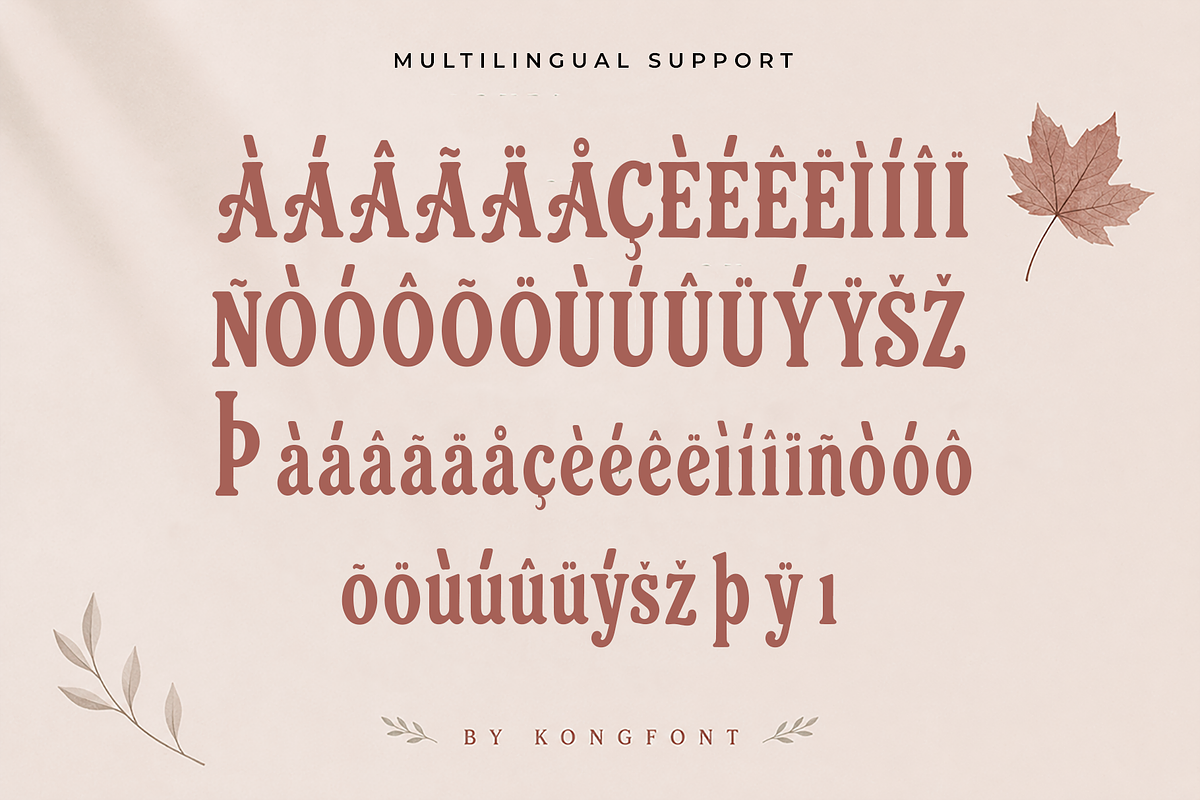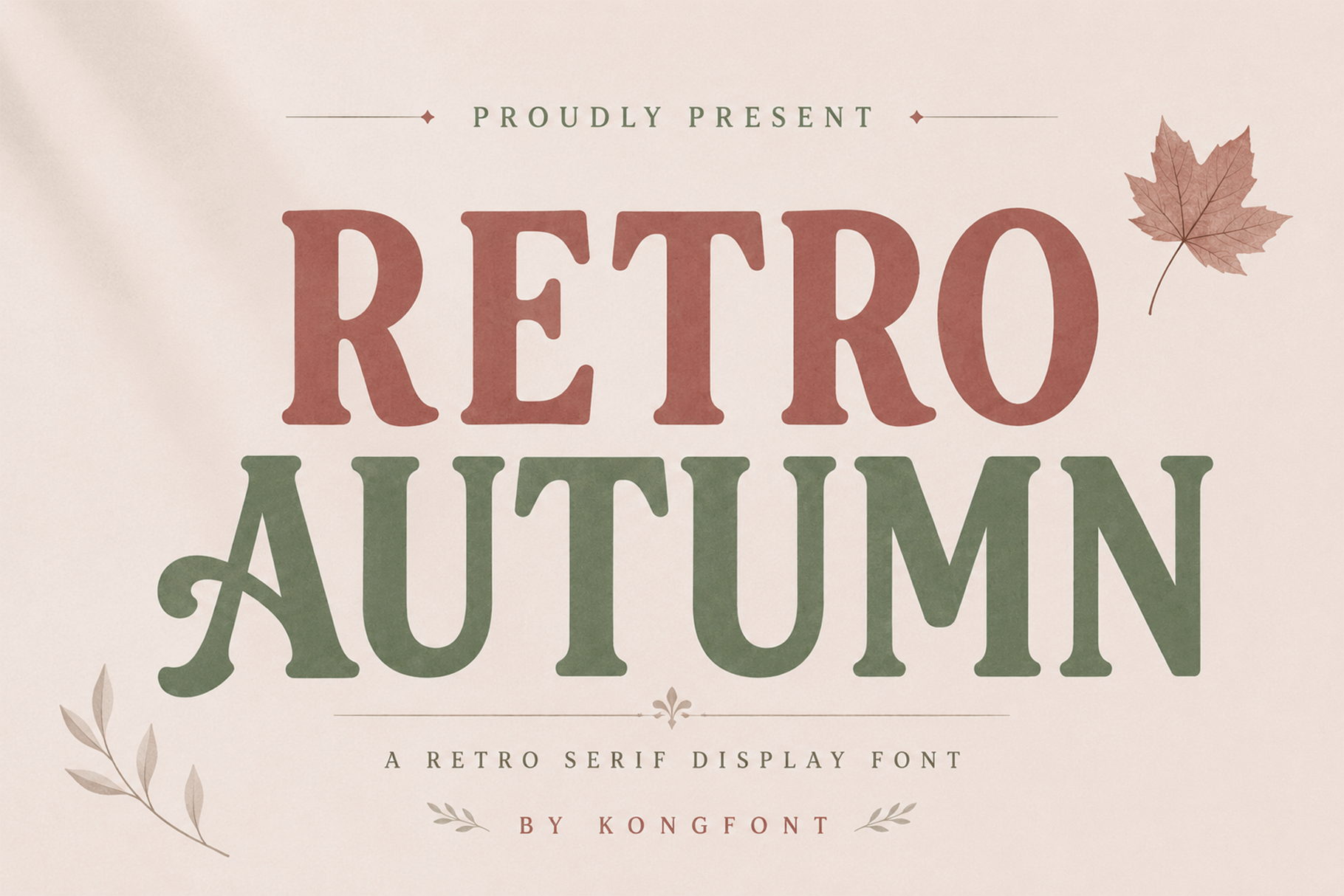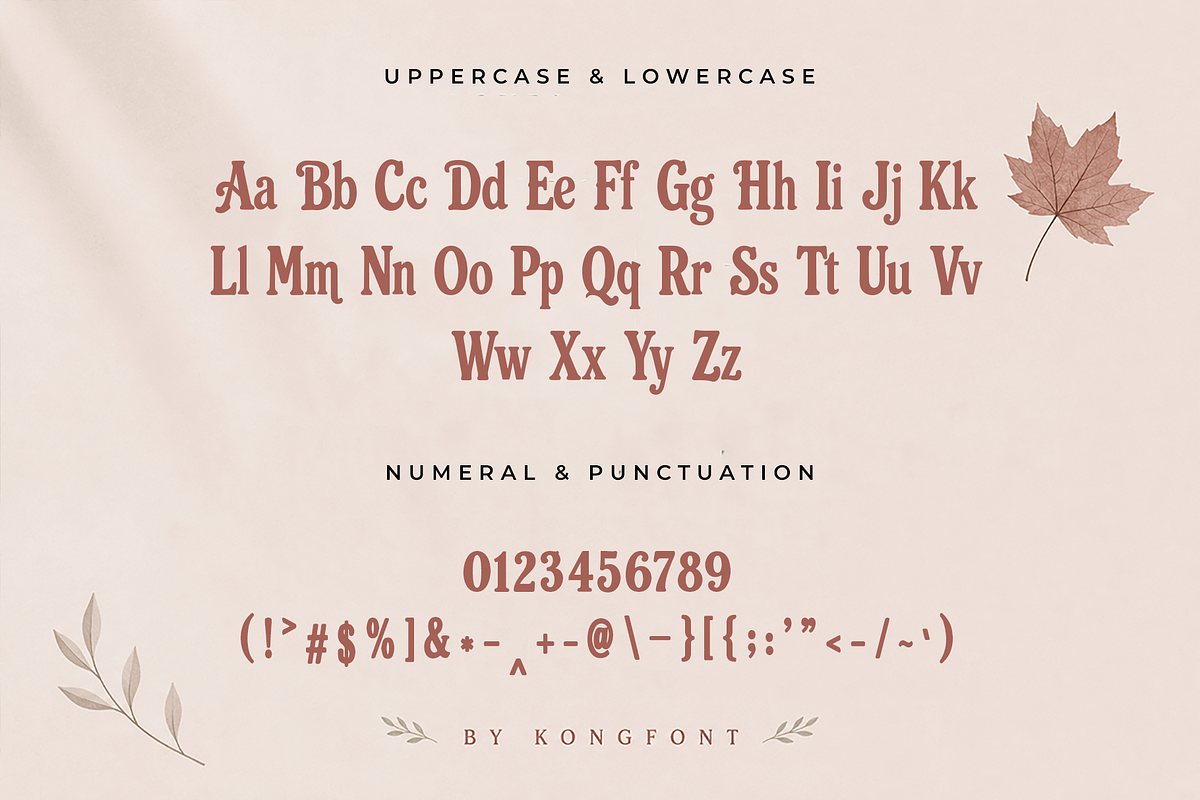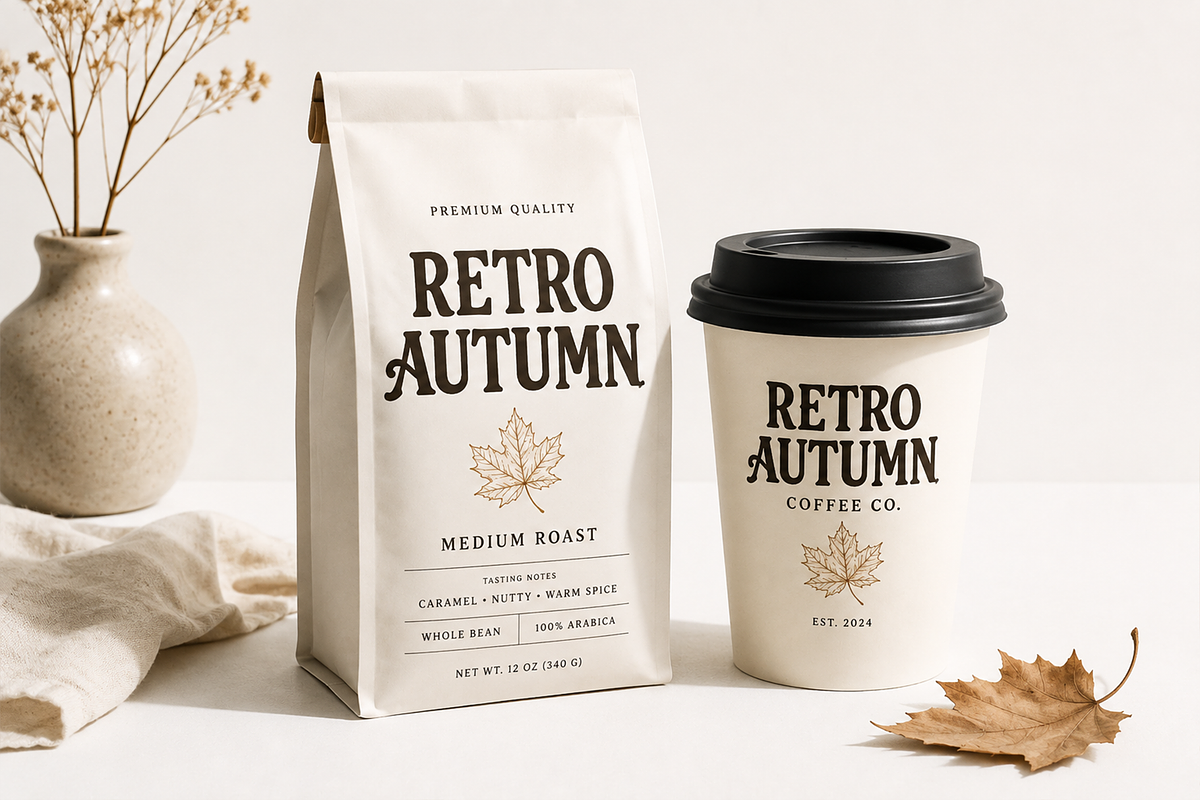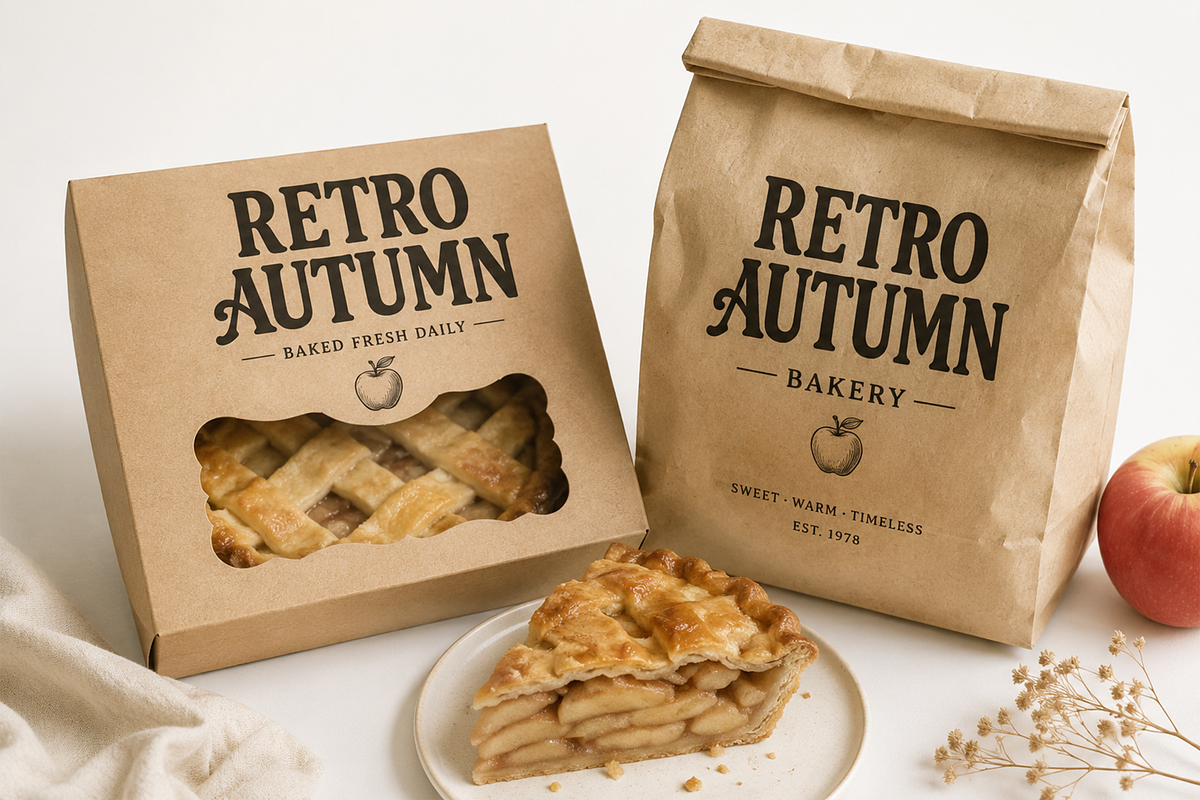
Retro Autumn - Vintage Serif Font
Retro Autumn - Vintage Serif Display Font
Meet "Retro Autumn," a vintage serif display font inspired by warm seasonal colors, nostalgic typography, and the timeless beauty of autumn. Featuring bold serif shapes, soft curves, and distinctive decorative details, Retro Autumn brings a cozy and expressive character to every composition.
Retro Autumn works beautifully for coffee shops, bakeries, fall festivals, handmade products, fashion graphics, home décor branding, book covers, invitations, and autumn themed campaigns. Its nostalgic personality also makes it a great choice for retro inspired projects throughout the year.